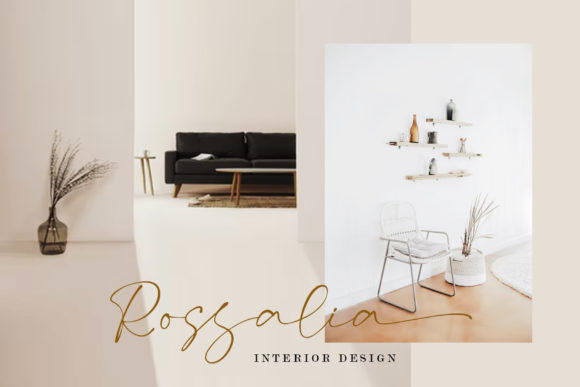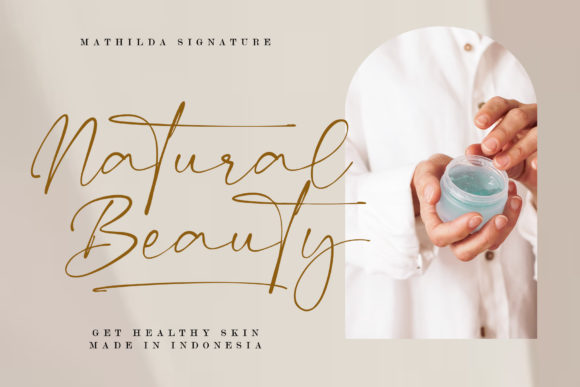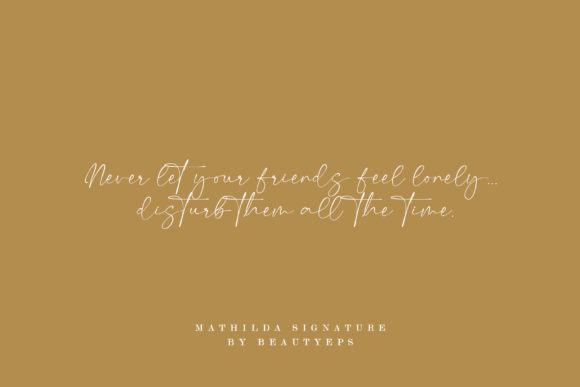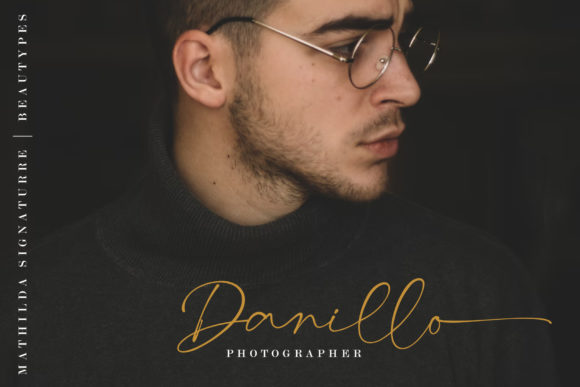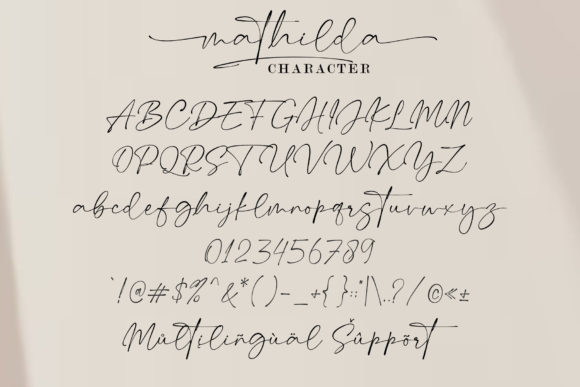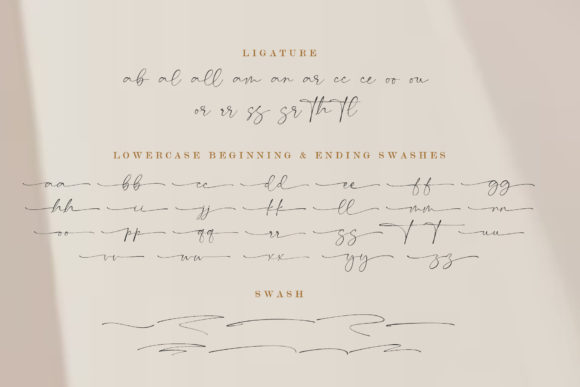
Mathilda Signature Font
About Mathilda Signature Font
Mathilda Signature is a thin lettered and stylish handwritten font. It is suitable for branding, signature, wedding invitation, promotion, product packaging, and various other needs.
Mathilda Signature is PUA encoded which means you can access all of the amazing glyphs and ligatures with ease!